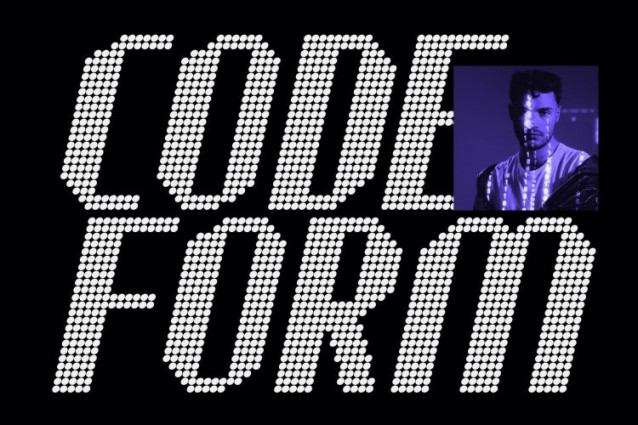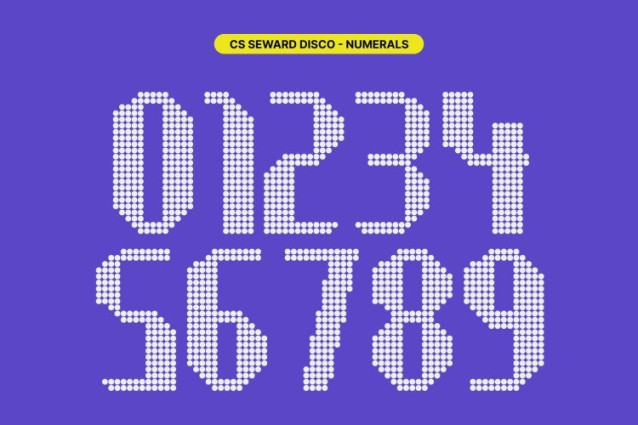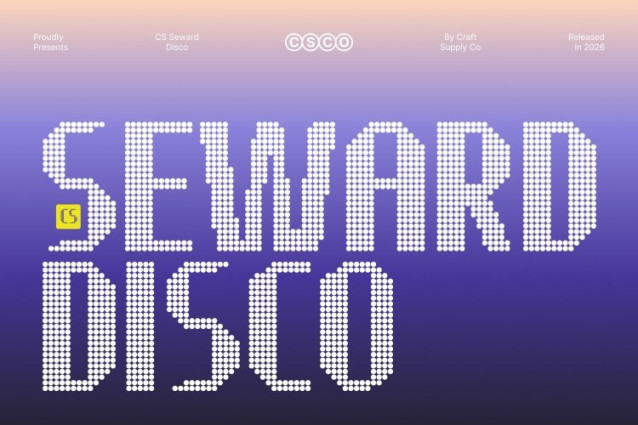
CS Seward Disco Font
CS Seward Disco Font – This font transforms the bold industrial display style into a striking dotted font that radiates energy and toughness. Built from solid dot formations, the letterforms retain their heavy structure while gaining a vibrant, eye-catching texture inspired by disco lights and illuminated signage.
Rugged Structure with Energetic Texture
The firm shapes and strong proportions remain at the core of the design, preserving the raw industrial attitude. The dotted construction adds movement and visual rhythm, creating a balance between toughness and playful sparkle that feels modern and dynamic.
Bold Voice with Festive Impact
The weighty silhouettes deliver a confident and assertive tone, while the dot texture introduces a lively, celebratory character. This fusion makes the font perfect for projects that want to feel powerful yet visually exciting and contemporary.
Perfect for Strong, Eye-Catching Design
Ideal for branding, posters, packaging, event graphics, and impactful headlines, stands out in bold compositions. Its industrial strength combined with disco-inspired energy ensures designs feel fearless, vibrant, and unforgettable.